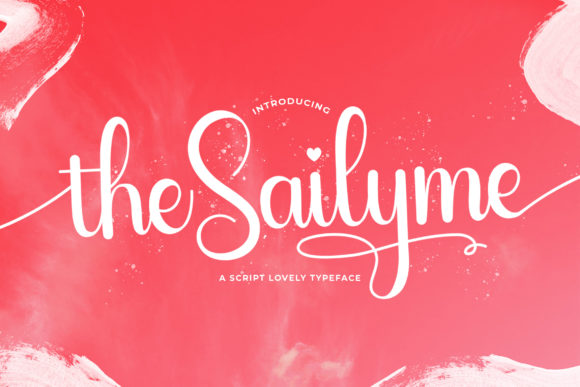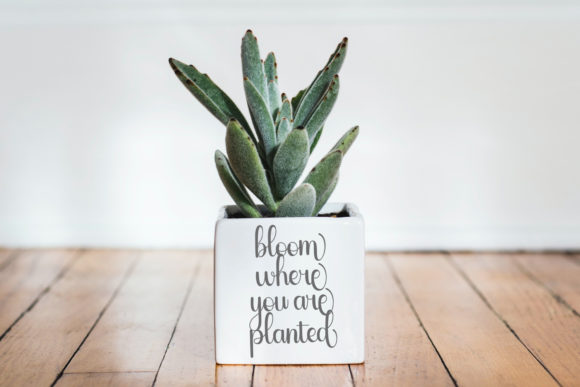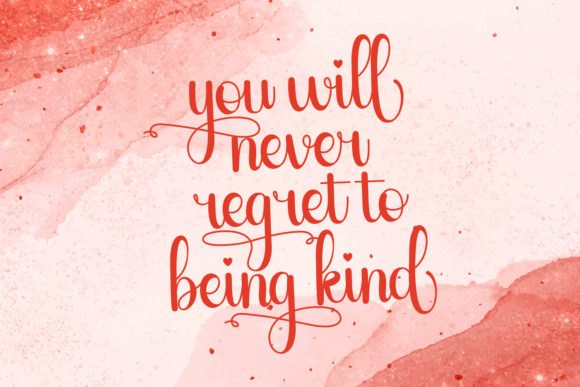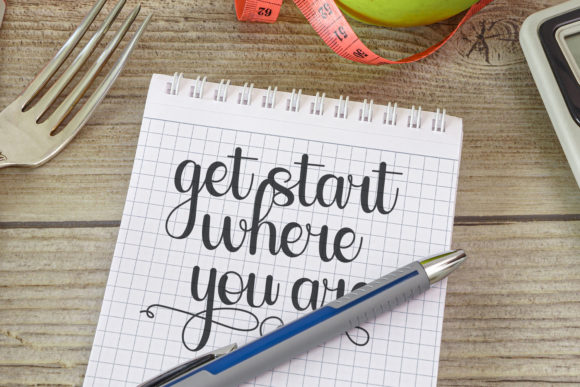
Sailyme Font
About the Sailyme Font
The Sailyme Font is here to transform your projects with its distinctive character and style. Sailyme is a romantic and delicate script font that has complimentary heart and swirly swashes that make it perfect for wedding invitations, greeting cards, and valentine’s day crafts.
Its delicate nature makes Sailyme ideal for projects requiring a touch of elegance and romance, such as wedding stationery, branding for luxury goods, or feminine product packaging. However, its intricate details might prove less legible in body text or UI contexts requiring high readability. Avoid using it for large blocks of text or applications demanding clear, concise communication.
Sailyme pairs well with clean sans-serif fonts like Lato or Open Sans for a balanced contrast, or a geometric sans-serif for a more modern feel. For a touch of playful sophistication, consider pairing it with a subtle serif like Playfair Display. Avoid pairing it with other script fonts, which would create visual clutter.
Sailyme projects a romantic and sophisticated personality, best suited for brands emphasizing femininity, luxury, or handcrafted quality. Its delicate charm is ideal for evoking feelings of warmth, affection, and refined taste.
Sailyme Font Usage Examples
Sailyme Font Example